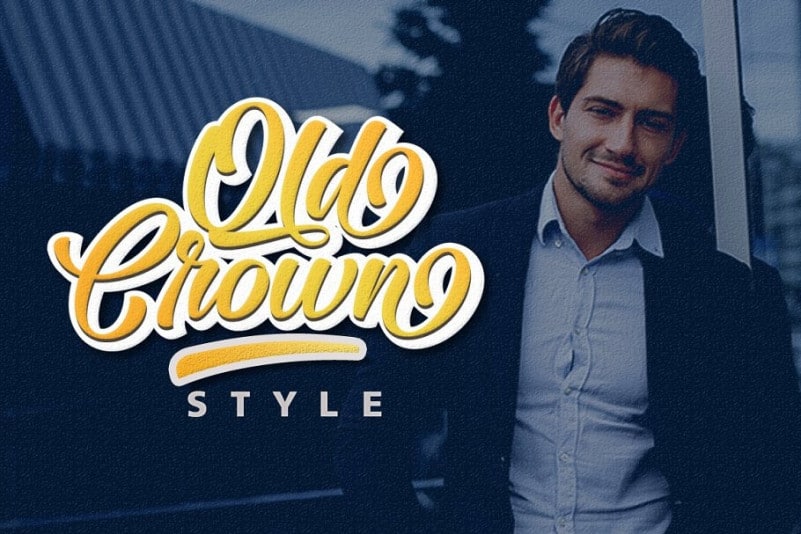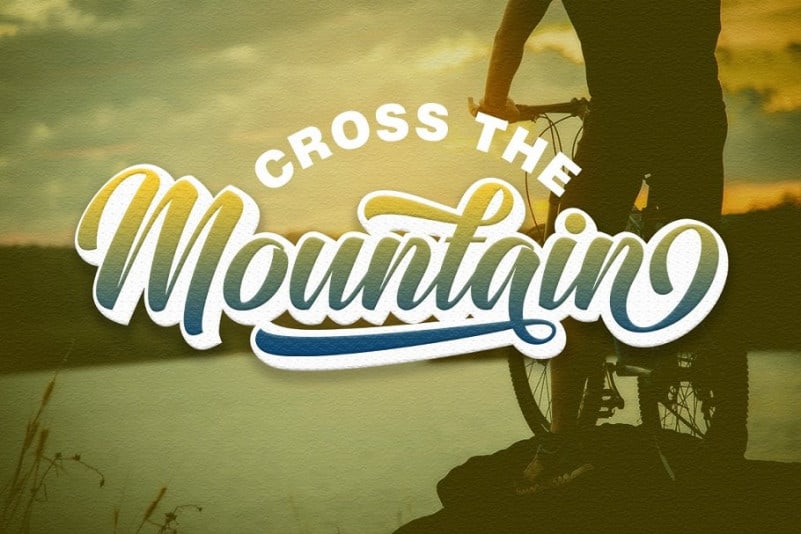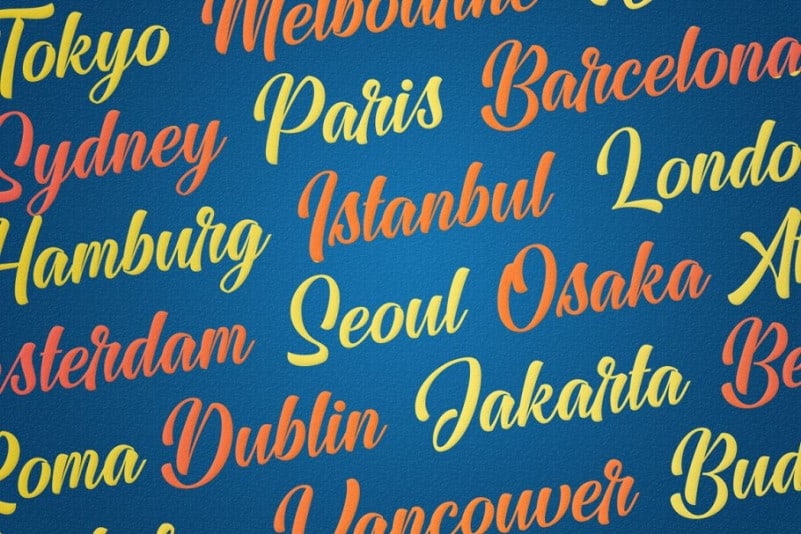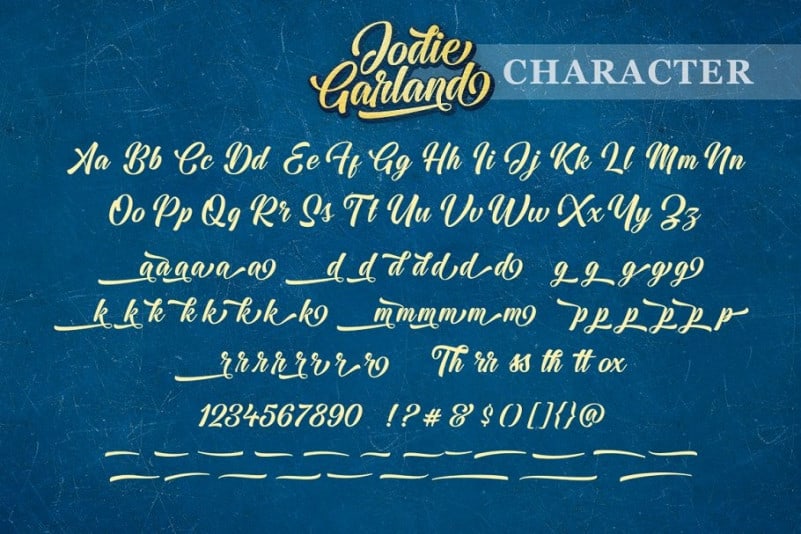
Jodie Garland Calligraphy Font
Hello guys. This is a calligraphy script font by Lettersams, It’s another lovely modern calligraphy typefaces, which is combining the style of classic calligraphy with an modern style. It’s perfect for all things design! Introducing Jodie Garland Font. Inspired by Retro style and combination with Handwriting style. Jodie Garland Script has many alternative swash and features like stylistic alternatice, stylistic set, ligature and swash so you can mix and match as you wish. Jodie Garland Script comes with open type features such as alternative styles, style sets & great features for logos, posters, badges, book covers, t-shirt designs, handwritten quotes, product packaging, headers, posters, merchandise, social media & greeting cards.